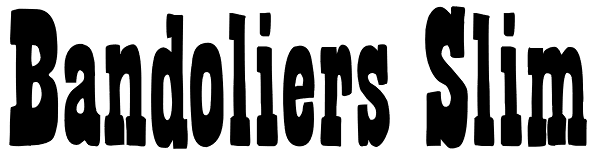
Bandoliers
Dusty and charmingly rustic, Bandoliers is a hand-drawn family of eight loud speaking fonts. Not quite sure which one to pick? Ask the dust... Or just take them all! (Be sure to put your earplugs in!)
Bandoliers High
Bandoliers Slim
Bandoliers Dizzy
Bandoliers Beefy
Bandoliers Rocky
Bandoliers Shaved
Bandoliers Jailed